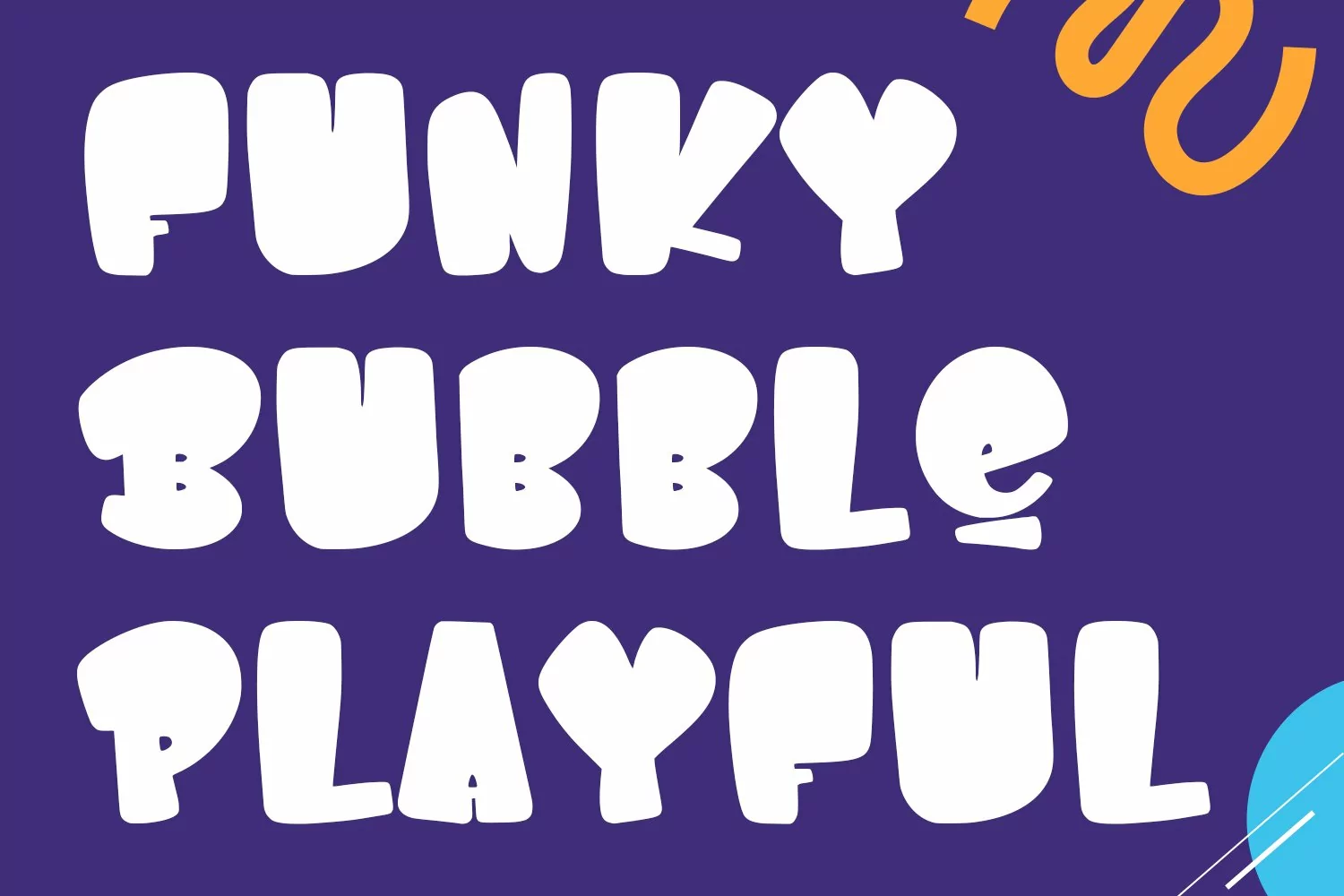
Bloobey fun children bubble display font. Bold stroke, fun character with alternates. To give you an extra creative work. Bloobey fun children bubble display font support multilingual more than 100+ language. This font is good for logo design, Social media, Movie Titles, Books Titles, a short text even a long text letter and good for your secondary text font with script or serif. Make a stunning work with Bloobey fun children bubble display font.